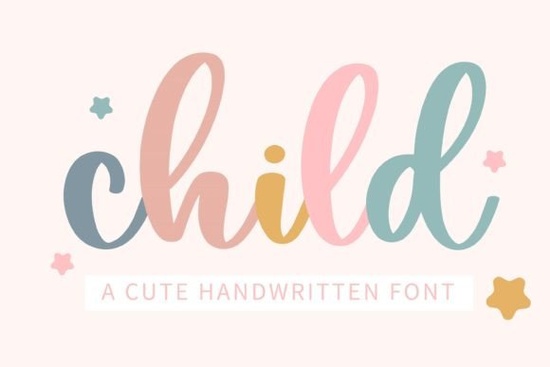
Finding the right typeface for projects involving kids or playful themes can be tricky. You want something legible but full of personality that does not look too generic. The Child Font offers a sweet and cute handwritten style that fits perfectly into these niches. It is versatile enough for various creative tasks without losing its charming essence. Designers often struggle to balance fun with professionalism, but this script manages to bridge that gap effectively.
What projects work best with this typeface?
This font shines in scenarios that require a personal touch. Wedding invitations are a popular choice because the lettering feels intimate and warm. It is not too formal, which suits modern couples who want a relaxed vibe. Beyond weddings, it is excellent for beautiful stationary art. You can create thank-you notes, birth announcements, or personalized labels for gifts. The curves and flow of the letters add a human element that standard computer fonts often lack.
Social media managers also benefit from this style. Eye-catching social media posts need to stop the scroll, and unique typography helps achieve that. If you enjoy brighter themes, you might explore cheerful script options that bring similar energy to your feed. Consistency is key in branding, so using a distinct handwritten style helps followers recognize your content instantly. For bakery logos or dessert menus, look into sweet styles similar to cupcake themes to match the vibe of food-related businesses.
How do you pair it with other styles?
Mixing fonts can be difficult, but there are simple rules to follow. Since this script has a lot of character, pair it with a clean sans-serif for body text. This creates contrast and ensures readability. You do not want every element on the page to compete for attention. This typeface belongs to a larger family of broad collection of handwritten options available for creators, so you have plenty of alternatives if you need a secondary script.
When designing logos, keep the sizing in mind. Script fonts often need more space between letters to be legible. Adjust the kerning manually if your software allows it. Maintaining a natural handwriting feel helps connect with your audience on a personal level. Avoid using all caps with this style, as it can distort the natural flow of the connected letters. Lowercase letters showcase the swashes and tails that make the font unique.
Is it suitable for educational materials?
Teachers and parents often look for fonts that mimic how children learn to write. Legibility is the most important factor here. While this font is cute, it is clear enough for older kids to read easily. Teachers often need clear lettering for educational materials or school projects where readability matters. It works well for certificates, classroom decorations, or newsletter headers. However, for early literacy tools, ensure the letter forms match the specific handwriting curriculum used in your region.
Quick Checklist for Using Script Fonts
- Test Readability: Print a sample at the intended size to ensure letters are clear.
- Pair Wisely: Combine with simple sans-serif fonts to avoid visual clutter.
- Adjust Spacing: Increase line height and letter spacing for better legibility.
Taking these steps ensures your designs look professional and polished. Typography is a powerful tool when used correctly. By choosing a style that matches your message, you make your content more engaging. Start by downloading the font and testing it in your favorite design software. Experiment with different colors and backgrounds to see how it performs. With the right approach, this sweet handwritten style can become a staple in your creative toolkit.